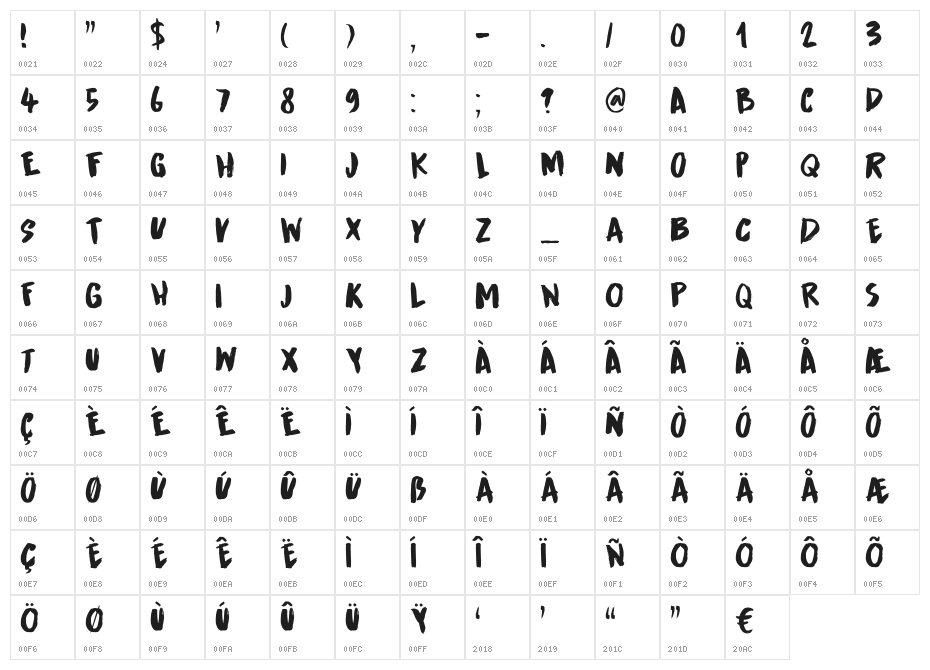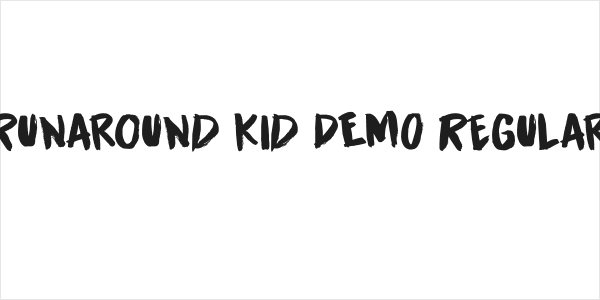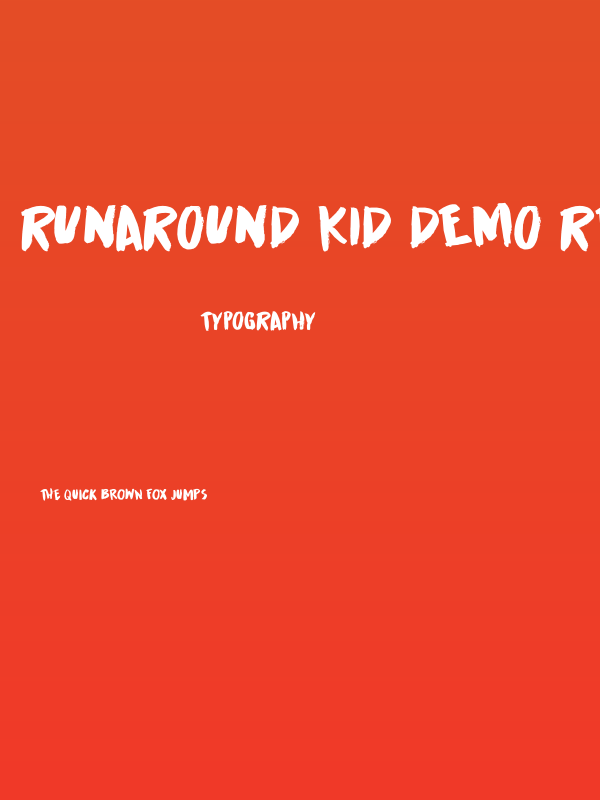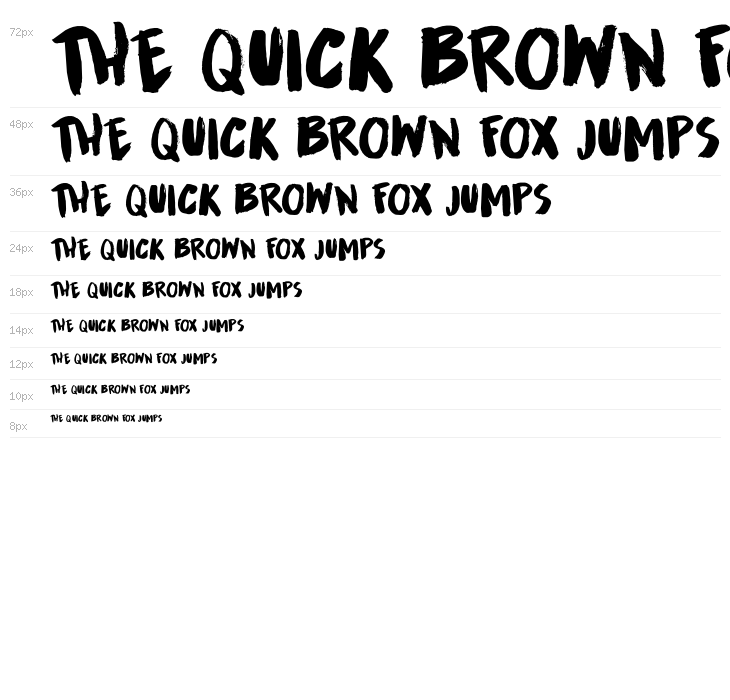
Runaround Kid DEMO Regular Font
Runaround Kid DEMO Regular Description
This font features a bold, expressive style with a hand-painted appearance. The characters are irregular and dynamic, giving a sense of movement and energy. The strokes are thick and uneven, contributing to a raw and artistic feel. It includes both uppercase and lowercase letters, numbers, and a selection of special characters. The overall look is informal and playful, making it suitable for creative and eye-catching designs. The font's unique style can add a personal touch to any project, standing out with its distinctive, artistic flair.
Proposed ProjectsIdeal for posters, album covers, branding, and any project requiring a bold, artistic touch.